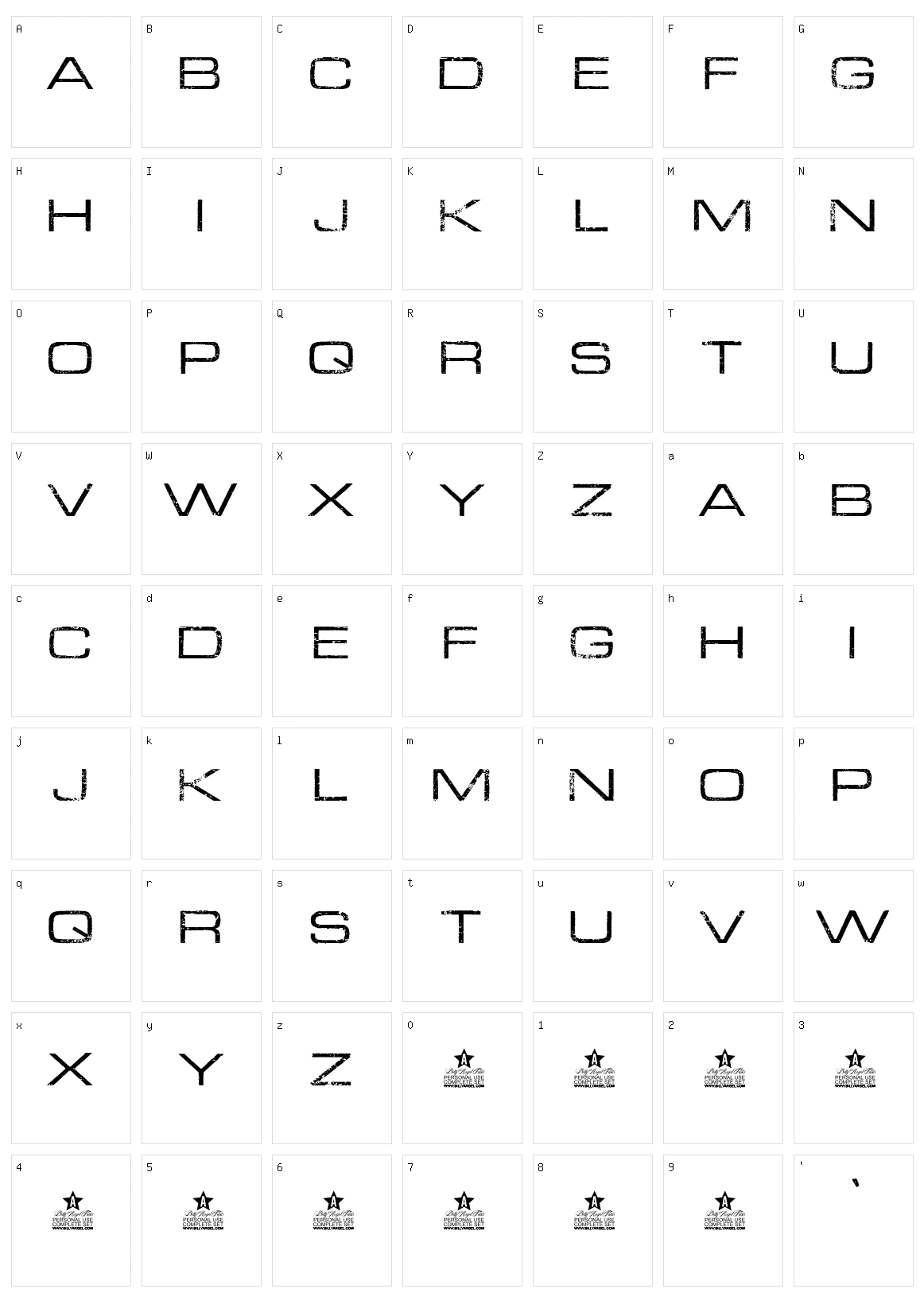
The free font Aurora is carefully designed by Billy Argel Fonts ®, showcasing a thoughtful balance of creativity and usability and falls under the Eroded font style. When you download the ZIP file, it contains only 194.5 KB of font files, making it lightweight and quick to download. Please review the license details below to understand permitted usage and distribution rights. If license information is not available, we recommend using this font for personal projects only or contacting the author directly for commercial usage permissions.